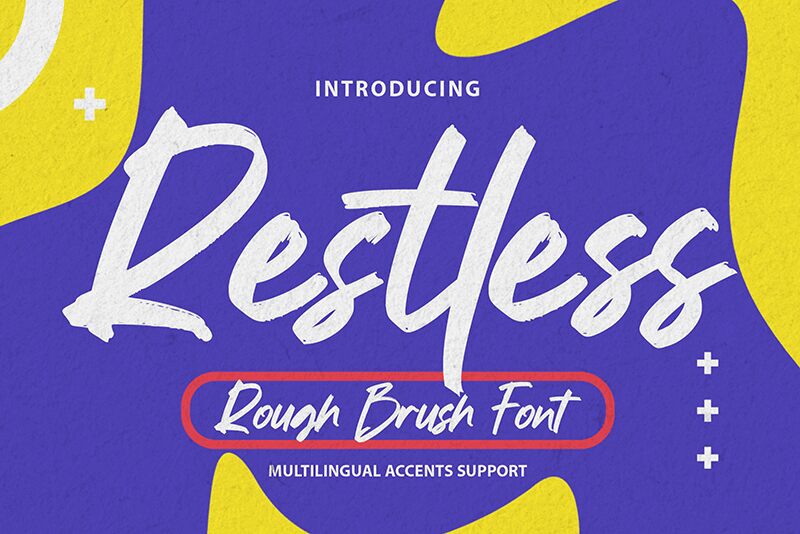
Restless
Restless, crafted by the artistic hands at Gassstype, stands out as a semi-light brush font embodying modern style with an undercurrent of dramatic movement. Its casually quick strokes bring forth a textured and authentic vibe that breathes life into any creative endeavor. With Restless, your labels transform into captivating pieces of art; posters exude an edgy flair; and project designs boast a fun, genuine essence.
This versatile font doesn't stop there-its suitability stretches to branding, packaging, greeting cards, websites, and more. Photography overlays gain an organic touch while signs and scrapbooking projects revel in its natural charm. To top it off, Restless supports OpenType features such as Ligatures glyphs to further enhance your designs with unique typographic nuance. Dive into the dynamic world of Restless for creations that demand attention and evoke emotion.